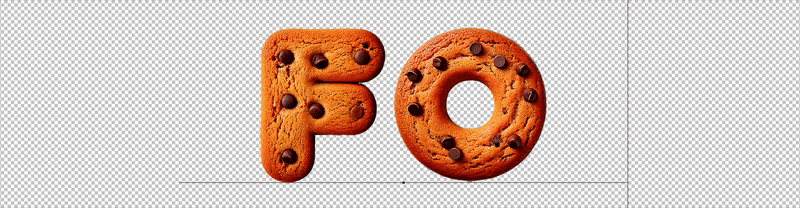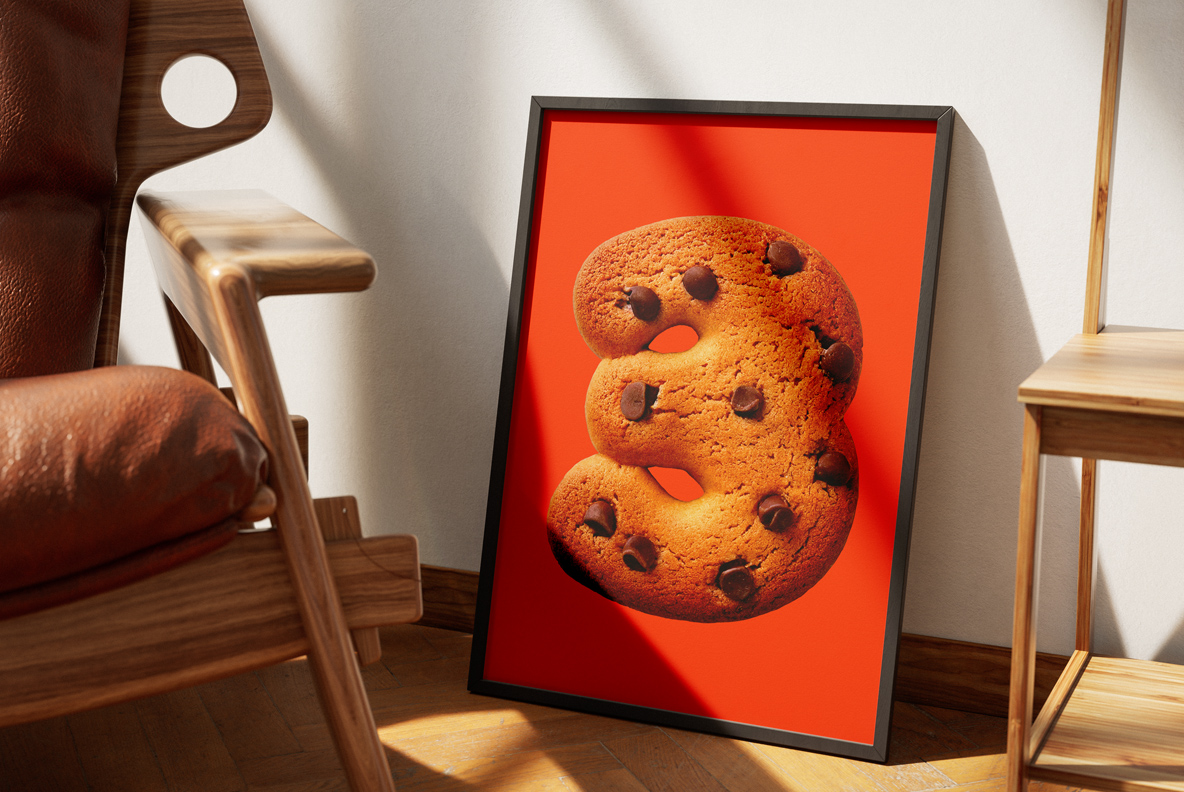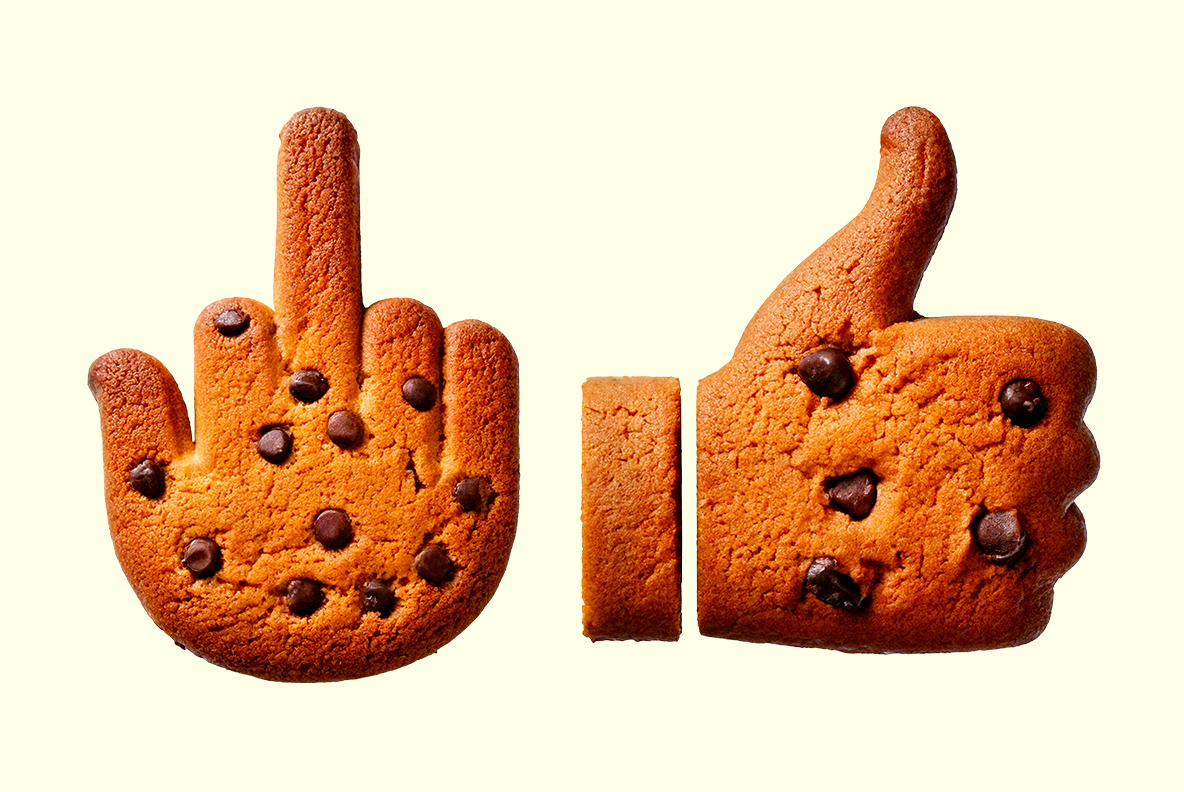
ChocoChunk Font. An Alphabet You Can Practically Taste
ChocoChunk Font is a deliciously bold typeface crafted to resemble chocolate chip cookies. With gooey details, rounded edges, and a fresh-baked vibe, it’s perfect for playful branding, dessert menus, kids’ projects, or any design that needs a sweet and quirky personality. This font is irresistibly tasty and visually fun.
Typography That Melts in Your Mind, Not Your Mouth
Some fonts are sleek. Others are sophisticated. But ChocoChunk? It’s scrumptiously silly, unapologetically sweet, and baked to golden perfection. Imagine if Willy Wonka had a type foundry or Wes Anderson opened a bakery. That’s the spirit of ChocoChunk—a deliciously bold font shaped like your favorite chocolate chip cookies, straight from the oven and still warm.
Every letter in the ChocoChunk family is a soft, chewy bite of typographic joy. Plump, golden-brown strokes with just the right amount of crisping on the edges. Semi-melted chocolate chips dot the surface like tiny punctuation marks from dessert heaven. It’s not just a font. It’s a snack. A statement. A sugar-fueled love letter to the days when your only concern was whether you got the biggest cookie in the jar.
Alphabet shaped like a chocolate chip cookie, golden-brown with realistic cracks and melty chips. Soft, puffy, and playful—perfect for food-themed designs or sweet branding
Bold Like a Brownie, Sweet Like a Storybook
Let’s be clear—this is not a font for shy designs. It’s a scene-stealer. It walks into your layout like a supporting actor who knows they deserve top billing. Use it for posters, children’s books, dessert menus, branding for quirky bakeries, or that indie film title sequence that needs just the right amount of whimsy.
The font’s personality is part Pixar, part pop-art, part patisserie. It speaks the language of fun with a mouth full of cookie crumbs. It’s the kind of typeface that pairs best with bright colors, oversized imagery, and just the right amount of retro kitsch. (Pro tip: It looks amazing next to milk. Or milk-inspired whitespace.)
ChocoChunk Open-Type Font description
Alphabet shaped like a chocolate chip cookie, golden-brown with realistic cracks and melty chips. Soft, puffy, and playful—perfect for food-themed designs or sweet branding
Chunk Up Your Message
Now let’s talk structure. Despite its playful exterior, ChocoChunk is crafted with real design integrity. Its letterforms are carefully balanced, with rounded terminals and consistent proportions that make it surprisingly readable—even in longer stretches. That’s right: you can write full sentences with this cookie-cutter cutie and still keep your audience’s attention. Because let’s face it—cookies make everything better, even copy.
And while it’s clearly a display font (nobody’s writing annual reports in ChocoChunk… unless they’re genius), it’s versatile enough to be used in headers, logos, packaging, merch, and anywhere you need to say “Hey! We’re fun, friendly, and maybe a little obsessed with baked goods.”
Culturally, ChocoChunk fits into that golden category of fonts that feel nostalgic without being dated. It evokes childhood, yes—but also cafés, bakeries, cozy weekend mornings, and that one friend who’s always bringing homemade cookies to the group chat. It’s got the charm of stop-motion animation, the optimism of ‘90s commercials, and the edible glamour of a food styling Instagram account with way too many followers.
Alphabet shaped like a chocolate chip cookie, golden-brown with realistic cracks and melty chips. Soft, puffy, and playful—perfect for food-themed designs or sweet branding
Great Taste, Zero Calories
But here’s the thing: it’s not just cute. ChocoChunk is confident. It knows that being sweet doesn’t mean being simple. Like your favorite Pixar side character or that eccentric art director who wears patterned socks on purpose, it’s got depth, charm, and enough flavor to carry an entire concept on its (crumb-covered) shoulders.